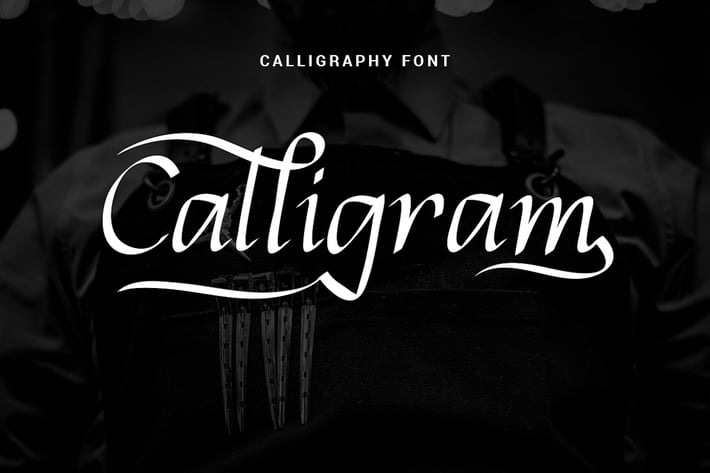
Calligram - Stylish Calligraphy Font
Introducing: Calligram! A unique, stylish calligraphy font with a personal charm. With many alternate style, Calligram is perfect for photography, watermark, social media posts, advertisements, logos & branding, invitation, product designs, label, stationery, wedding designs, product packaging, special events or anything that need calligraphy or handwriting taste.
- Calligram with Regular style
- Calligram with unique alternate